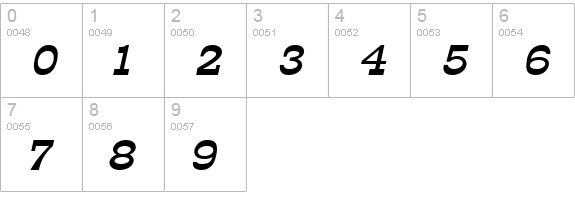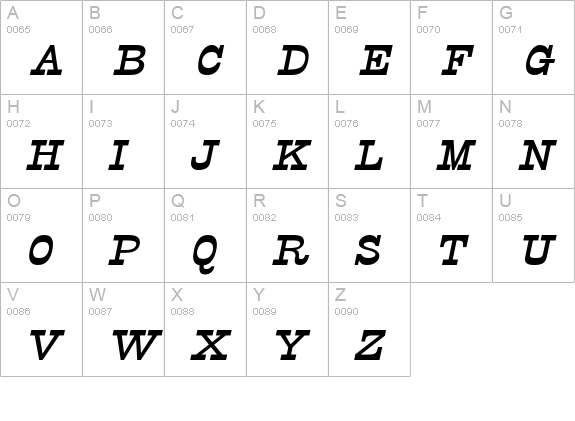
Circus Wide BoldItalic Font Details
Circus Wide BoldItalic is a distinctive, extended-width variant in the Circus typeface family \xE2\x80\x94 well suited to design and typography projects.
Circus Wide BoldItalic font is a captivating and dynamic typeface that exudes a playful yet strong presence. With its bold and italicized design, this font is perfect for creating eye-catching headlines, posters, and branding materials that demand attention. The unique wide letterforms of Circus Wide BoldItalic add a touch of whimsy and creativity to any design project. What sets Circus Wide BoldItalic font apart is that it is available for free download at FontsMarket.com. This means that you can easily access this versatile font and use it in your personal and commercial projects without any cost. Embrace the bold and adventurous spirit of Circus Wide BoldItalic font and elevate your designs with its striking aesthetic.